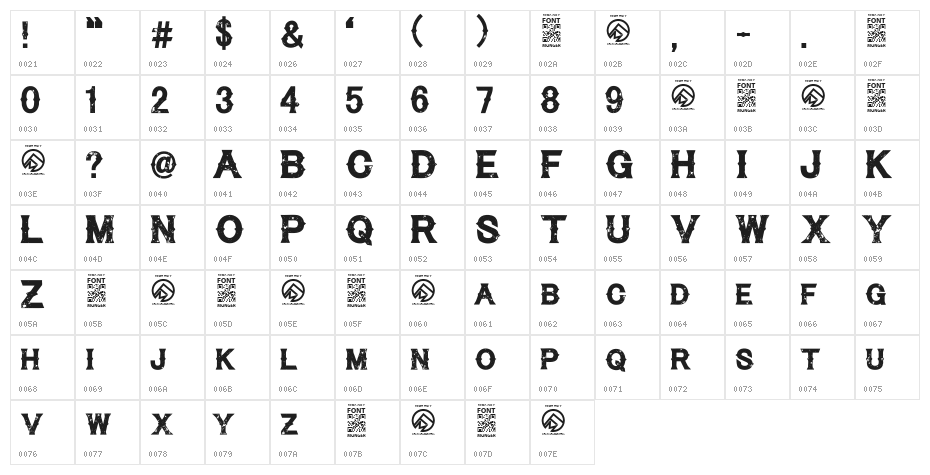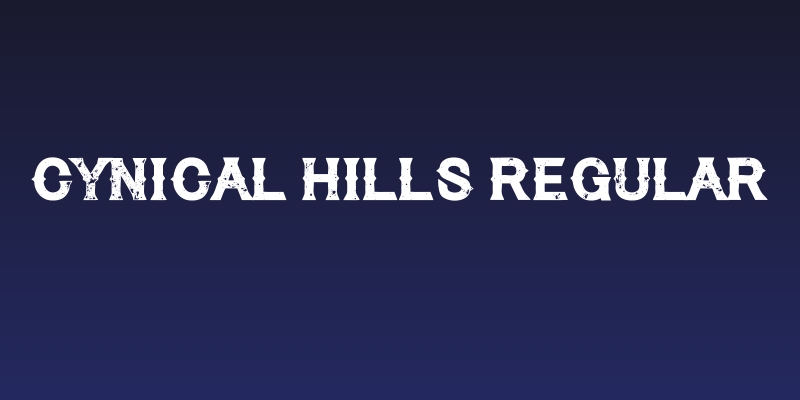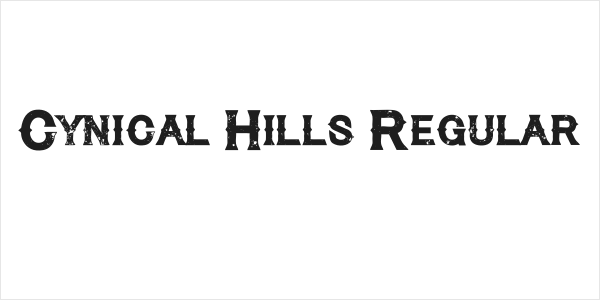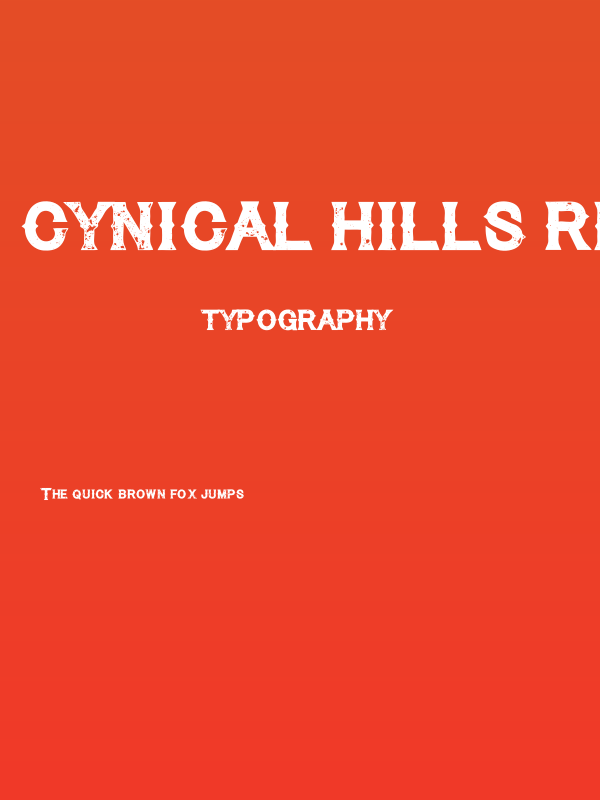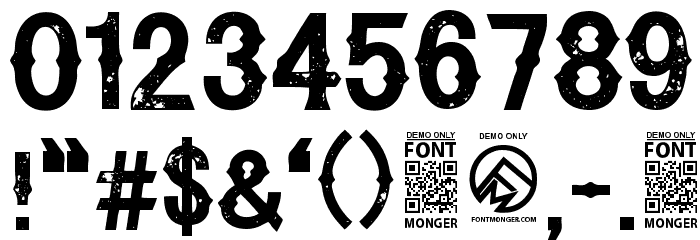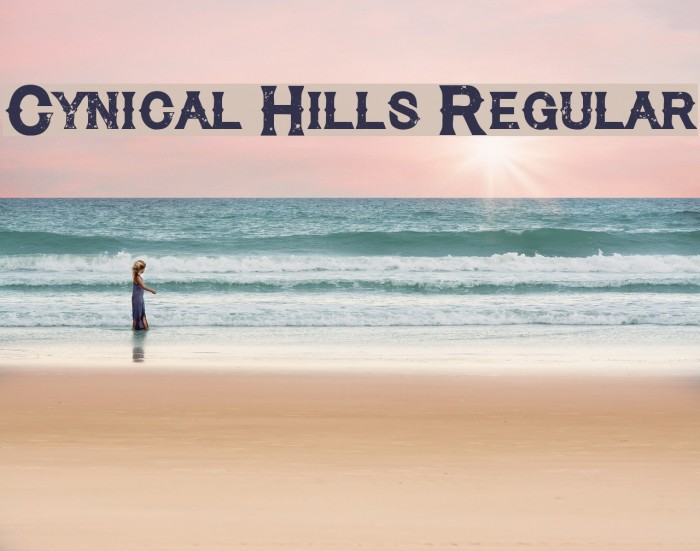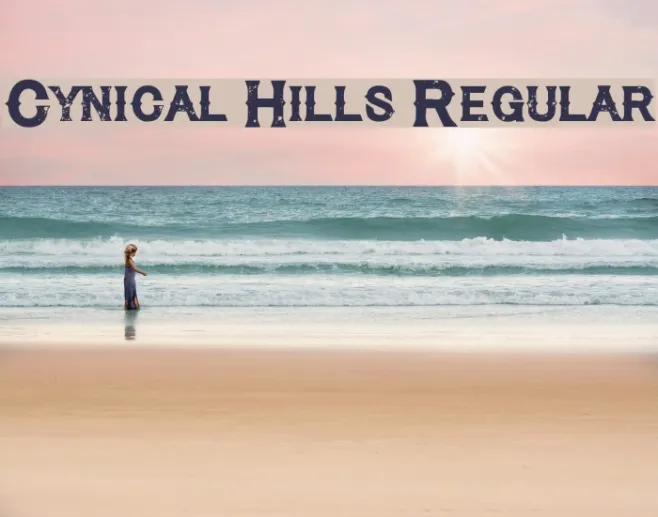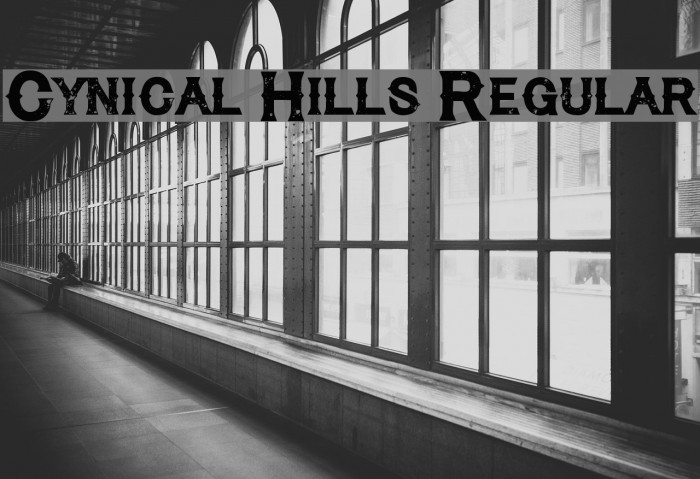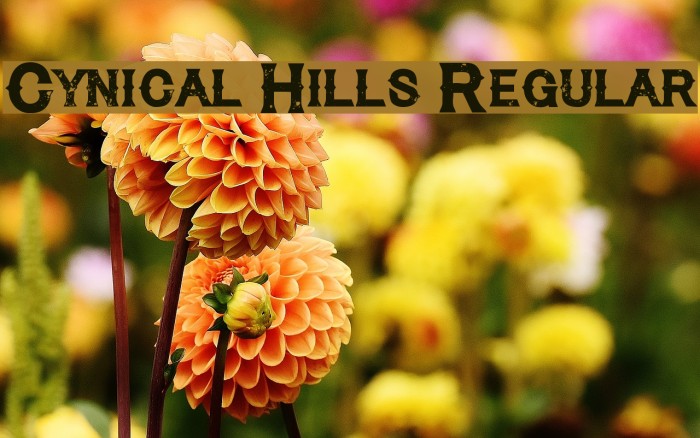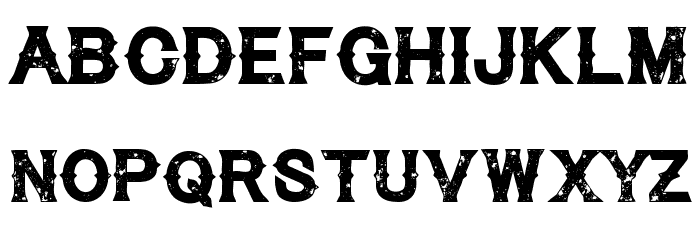
Cynical Hills Regular Font
Cynical Hills Regular Description
This font exhibits a rugged, distressed appearance with a bold and impactful presence. The characters are designed with a textured, worn-out effect that gives them a vintage and grunge aesthetic. The uppercase and lowercase letters maintain a consistent style, with the texture adding a unique character to each glyph. The numbers and special characters follow the same design, ensuring uniformity across all elements. This font is ideal for projects that require a bold statement with a touch of edginess and character.
| Overall Style | Vintage, Grunge |
| Proposed Projects | Ideal for posters, album covers, branding for edgy products, and any design needing a bold, vintage look. |